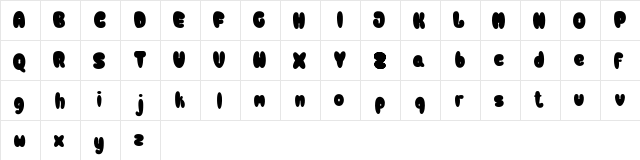
Bulb Regular
| Foundry | Gumacreative |
| Designer | Gumacreative |
Design Context for Bulb Typeface
Bulb is a composed and adaptable typeface that performs quietly and consistently across a wide range of design contexts.